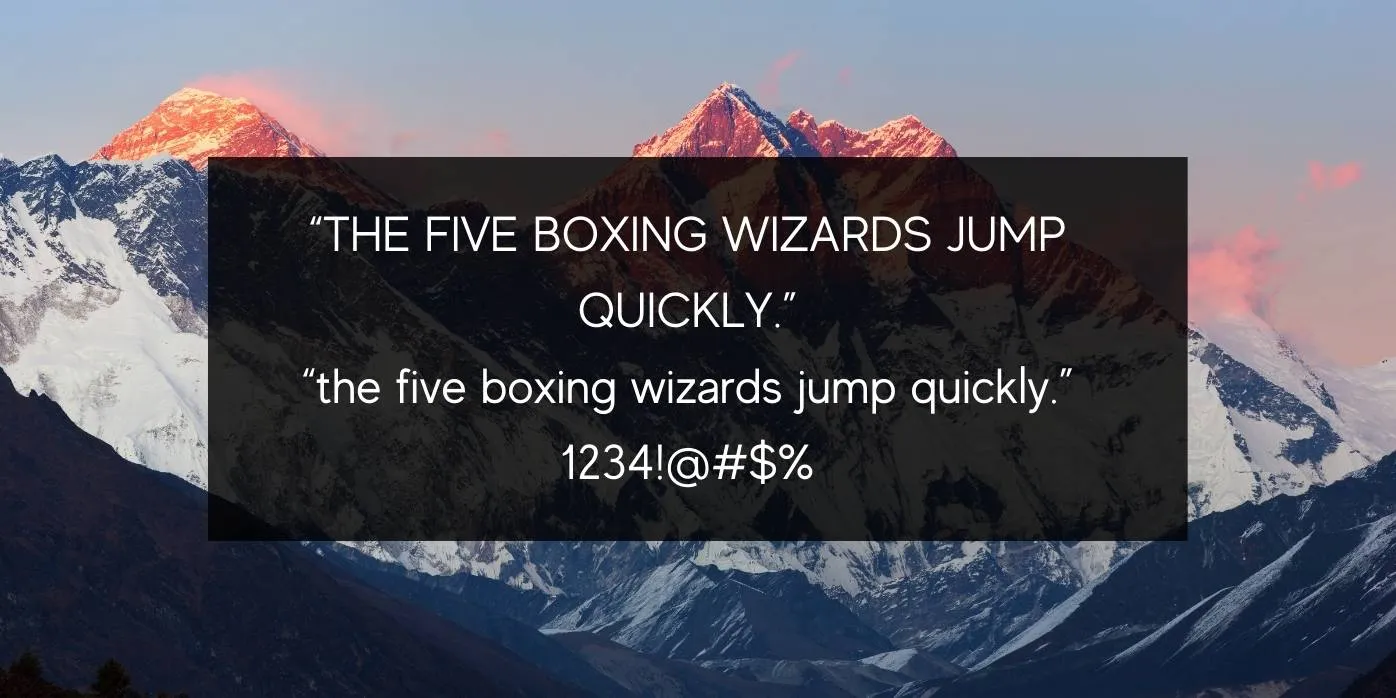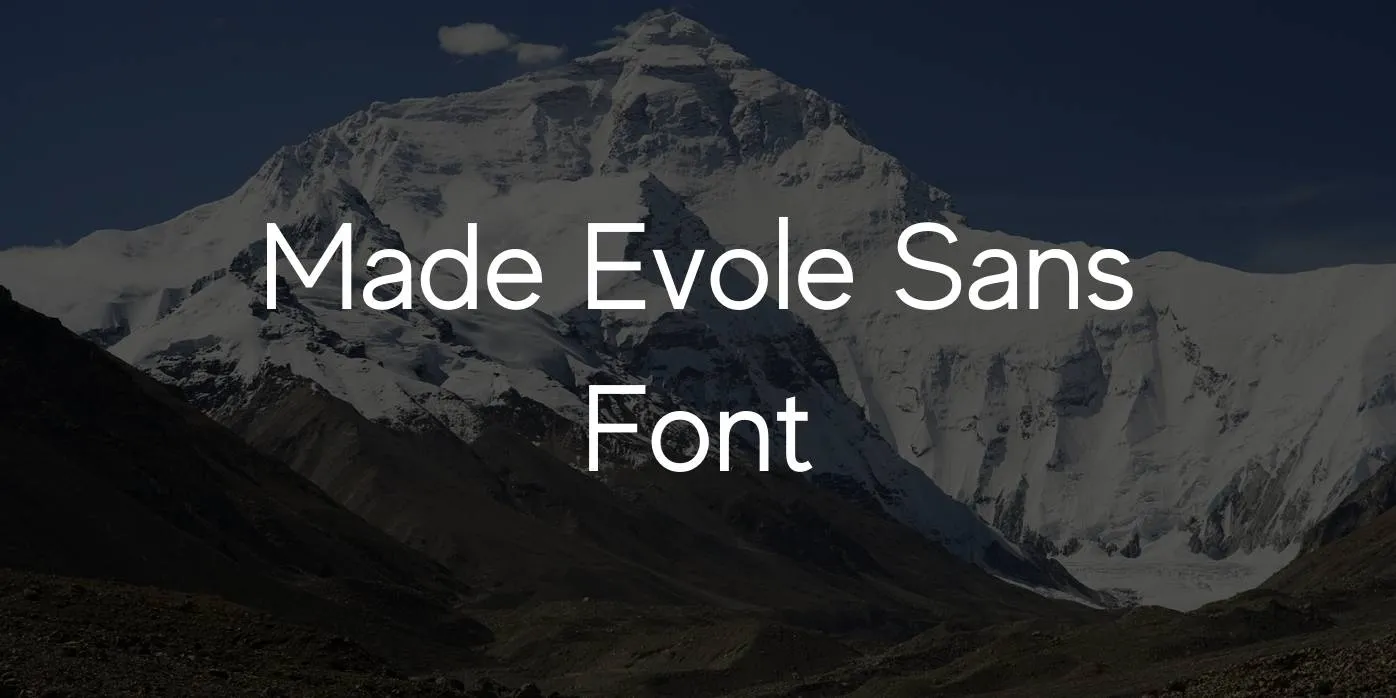
Made Evole Sans Font
In this article, we introduce Made Evole Sans Font which is a basic sans serif typeface. This typeface was developed by Madetype Foundry.  The first release was in 2013. This typeface is well specified for the CSS and HTML. Made Evole Sans Font has a modern and neutral design.
The shapes of the letters are simple and clear. This makes the typeface very versatile. You can also use coocogoose font which is closest to this font family. It can be used for body text, headlines, and UI design.
This awesome font family includes 6 weights: Light, Regular, Medium, Bold, Black, and Extra Black. The copy-and-paste function is well suitable for various designs. Each weight has matching italics. The fonts come in OTF format with support for the Latin character set.